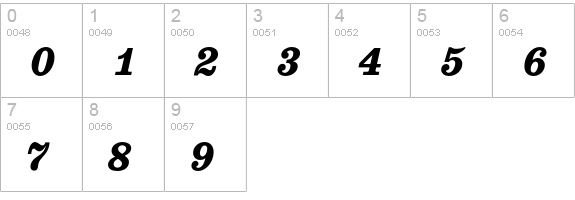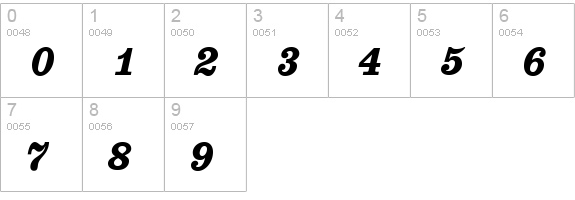
Egizio-BoldItalic Font Details
Egizio-BoldItalic is a stunning and versatile font that effortlessly combines elegance and modernity. Its bold and italicized design adds a touch of sophistication to any project, making it perfect for both headlines and body text. With its unique and eye-catching letterforms, Egizio-BoldItalic captivates the reader's attention and leaves a lasting impression. The slanted and bold strokes create a sense of movement and dynamism, making this font an excellent choice for projects that require a strong and impactful visual presence. Not only does Egizio-BoldItalic possess a visually appealing design, but it also offers excellent readability. The careful attention to detail in each character ensures that every word is clear and legible, even at smaller sizes. One of the best things about Egizio-BoldItalic is that it is free to download at FontsMarket.com. This means that you can add this incredible font to your collection without breaking the bank. Whether you are a professional designer or a hobbyist, having access to high-quality fonts like Egizio-BoldItalic can greatly enhance your creative projects. So why wait? Visit FontsMarket.com today and experience the beauty and versatility of Egizio-BoldItalic for yourself. Download it for free and bring your designs to the next level with this exceptional font.